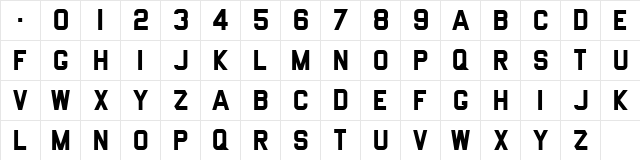
Metalarts 107 Block Regular
Design Context for Metalarts 107 Block Typeface
Metalarts 107 Block is a composed and adaptable typeface that performs quietly and consistently across a wide range of design contexts.